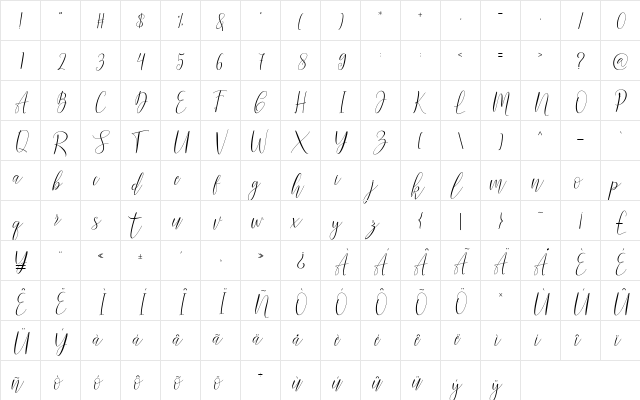
lanilla Regular
| Foundry | Ramadhana / Cut Story |
| Designer | Ramadhana/Cut Story |
Design Context for lanilla Typeface
lanilla is a composed and adaptable typeface that performs quietly and consistently across a wide range of design contexts.